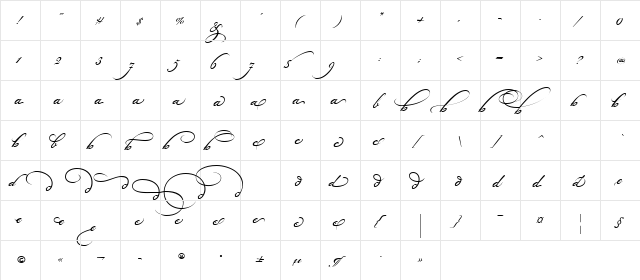
Bickham Script Alt One Regular
| Foundry | Gophmann A.L. |
| Designer | Gophmann A.L. |
Design Context for Bickham Script Alt One Typeface
Bickham Script Alt One brings a calligraphic fluidity to the page — its connecting strokes and expressive curves give it an unmistakably human quality.
Font Pairing: Combine Bickham Script Alt One with a simple geometric sans for maximum contrast — the tension between flowing curves and clean structure is a classic typographic pairing.
Pro Tip: Pair Bickham Script Alt One with a clean sans-serif for supporting text. The contrast between fluid script and geometric structure creates an elegant typographic hierarchy.